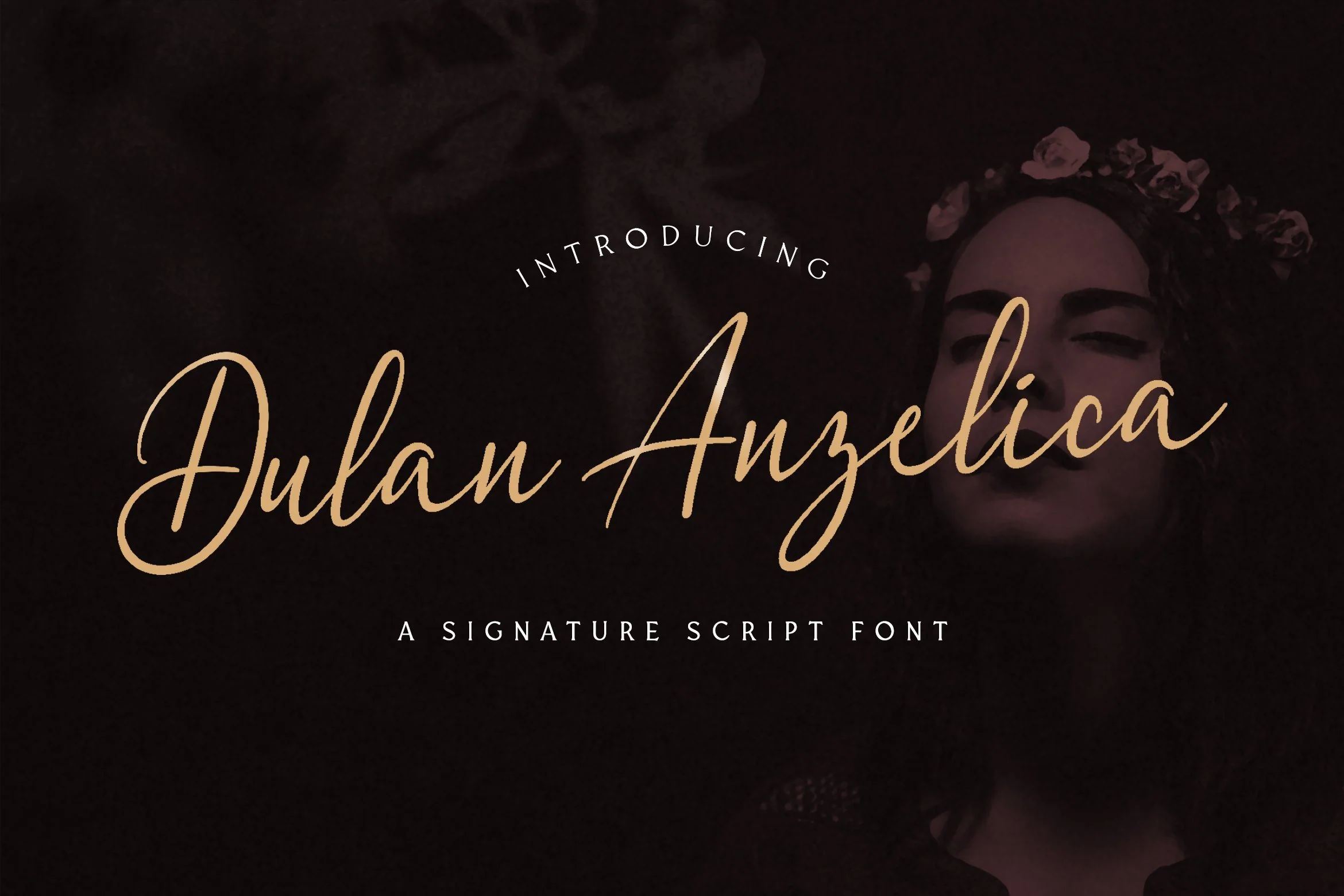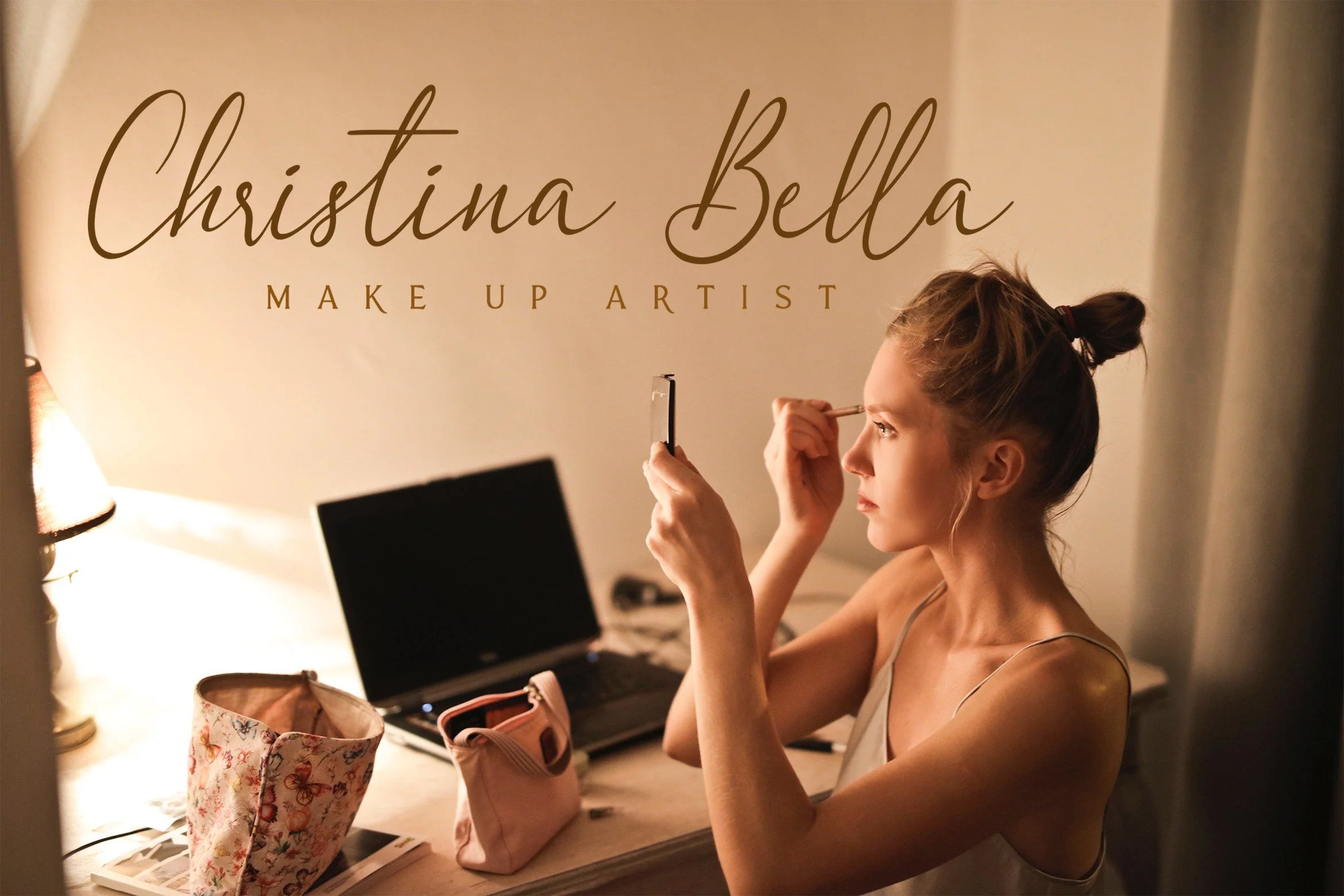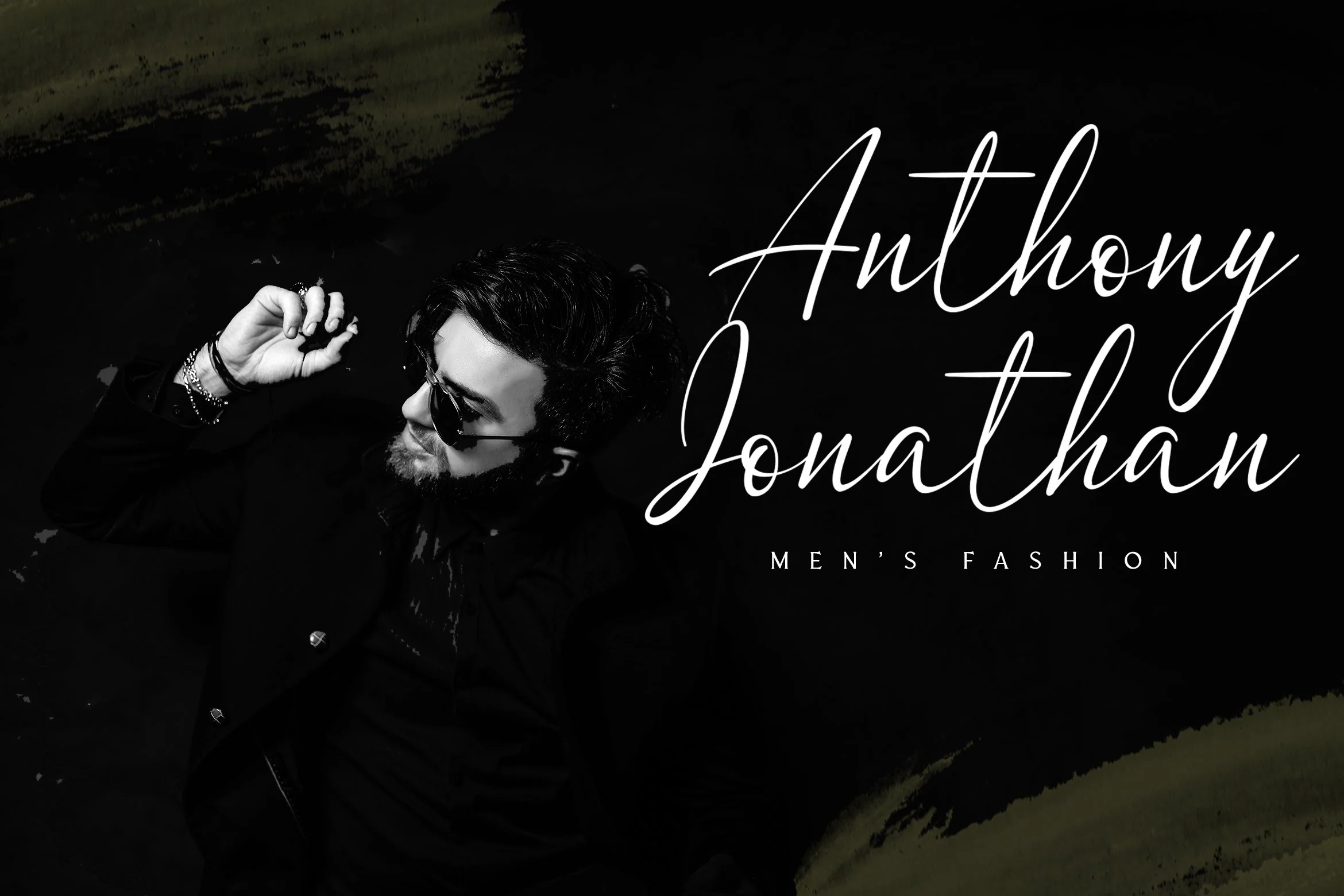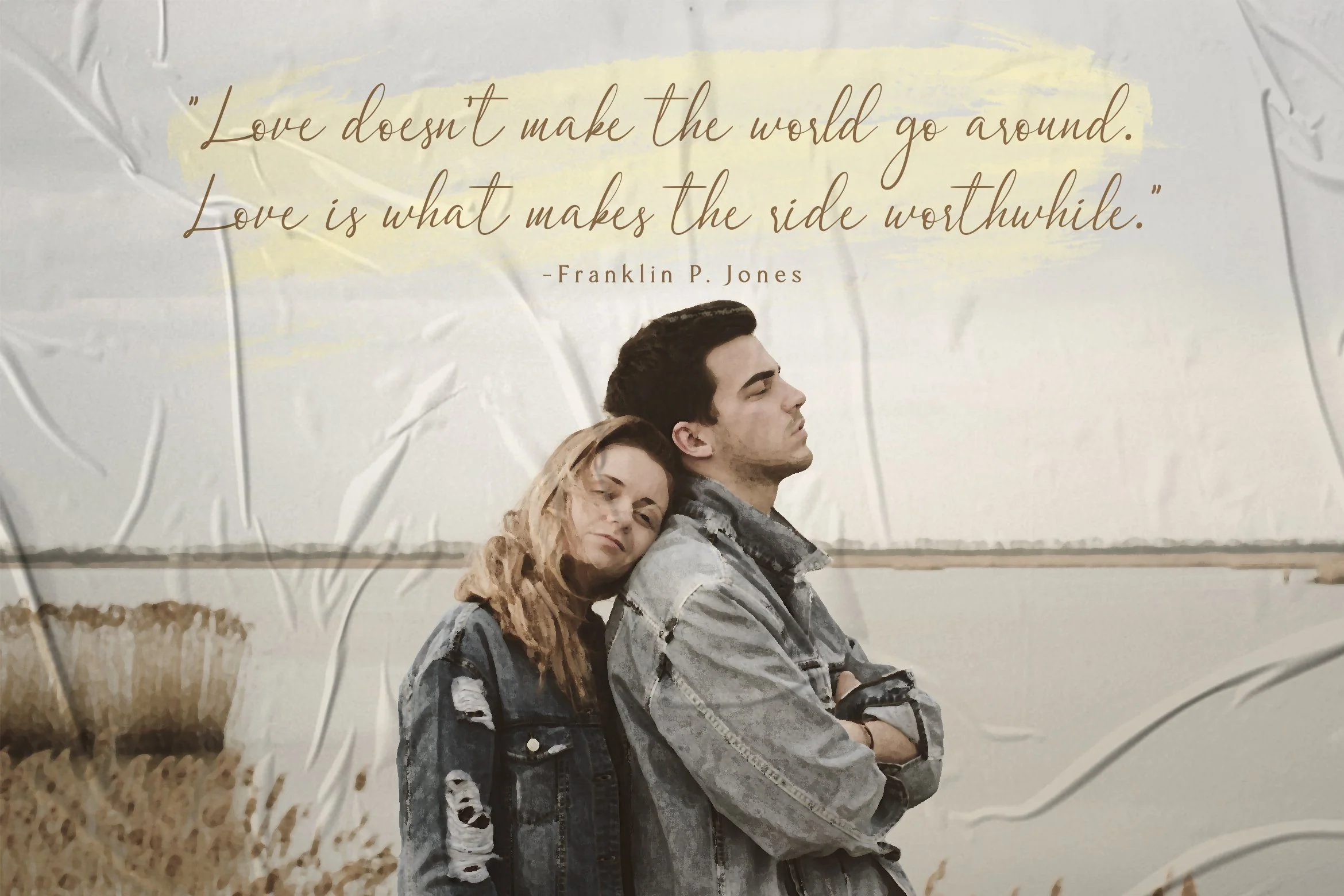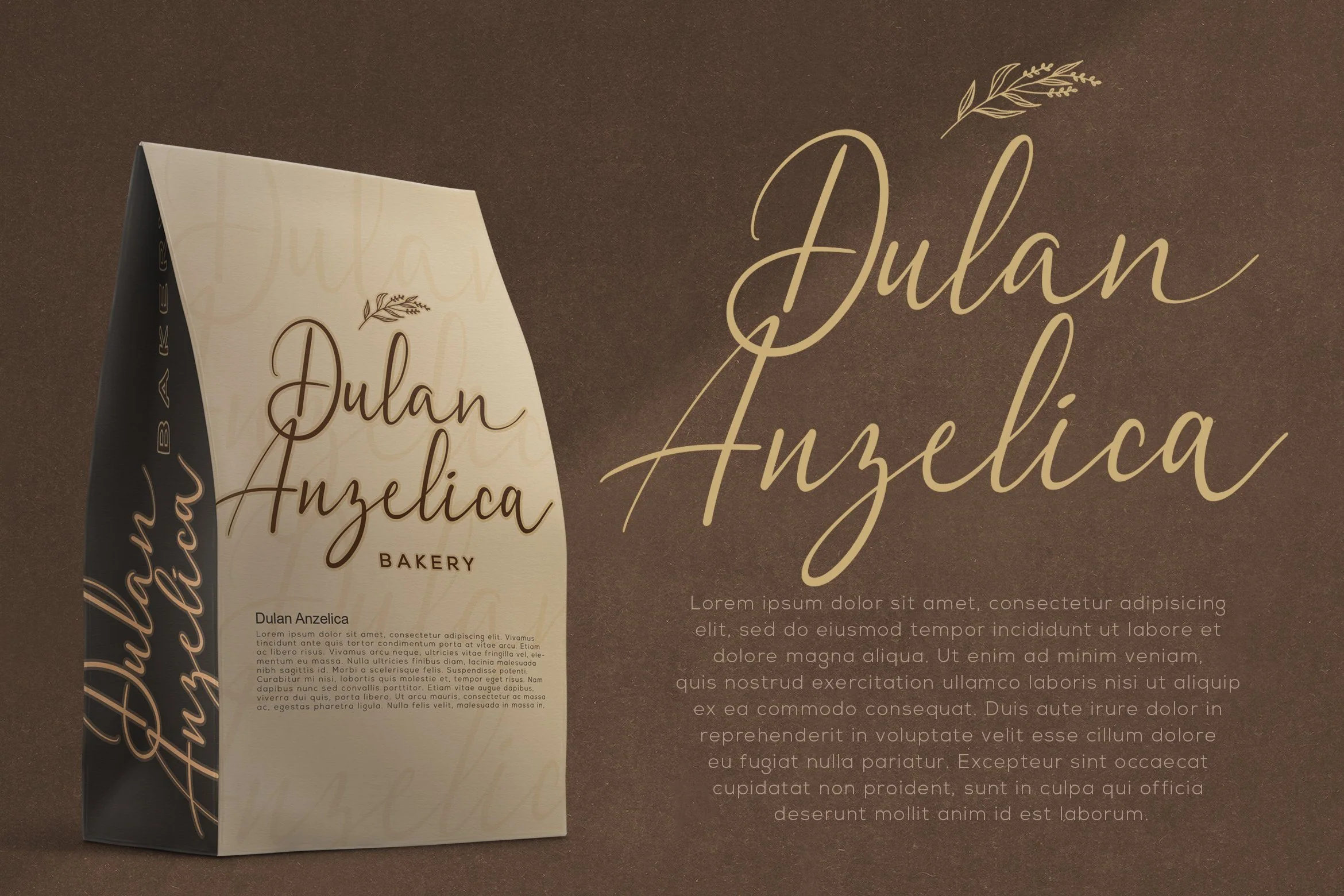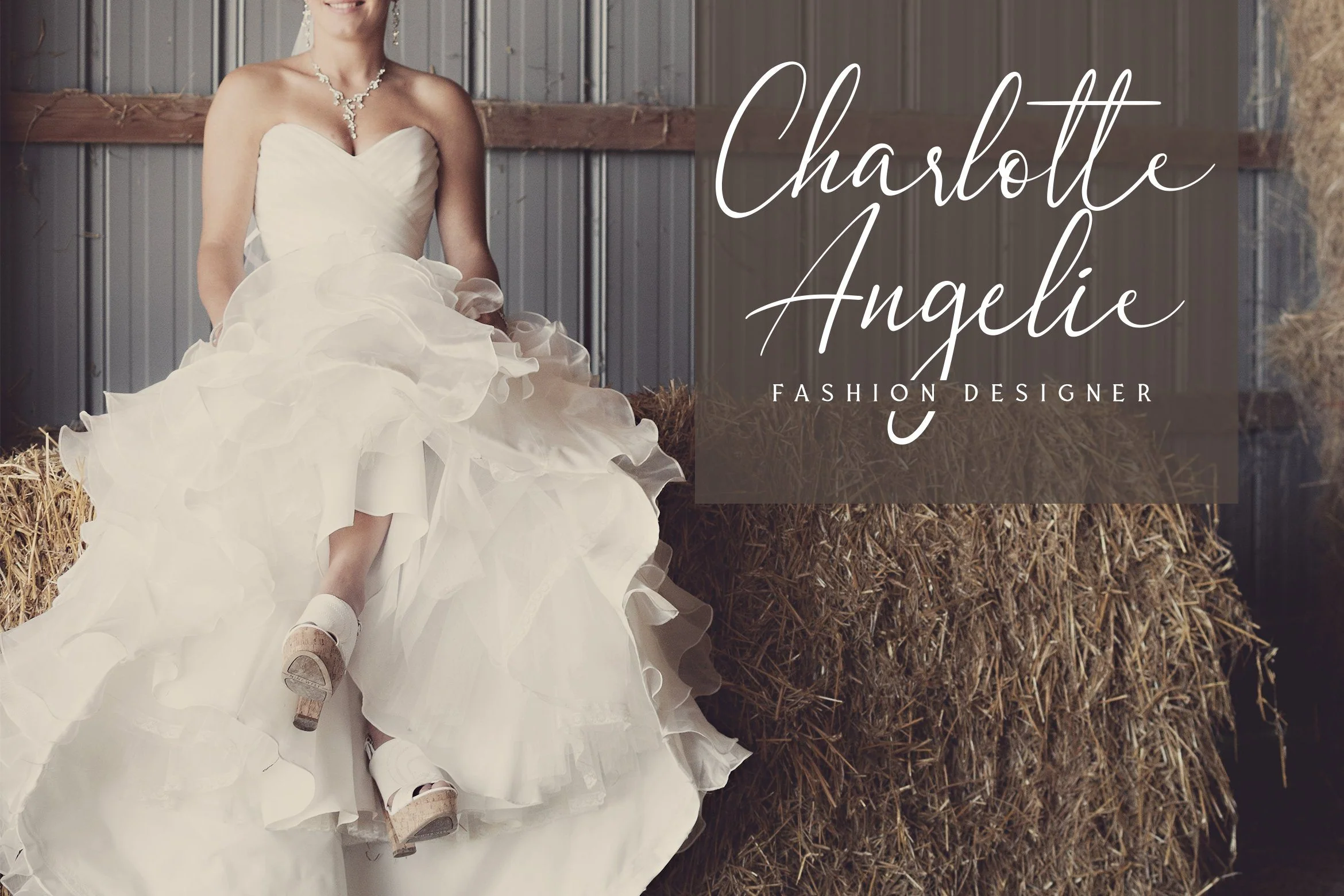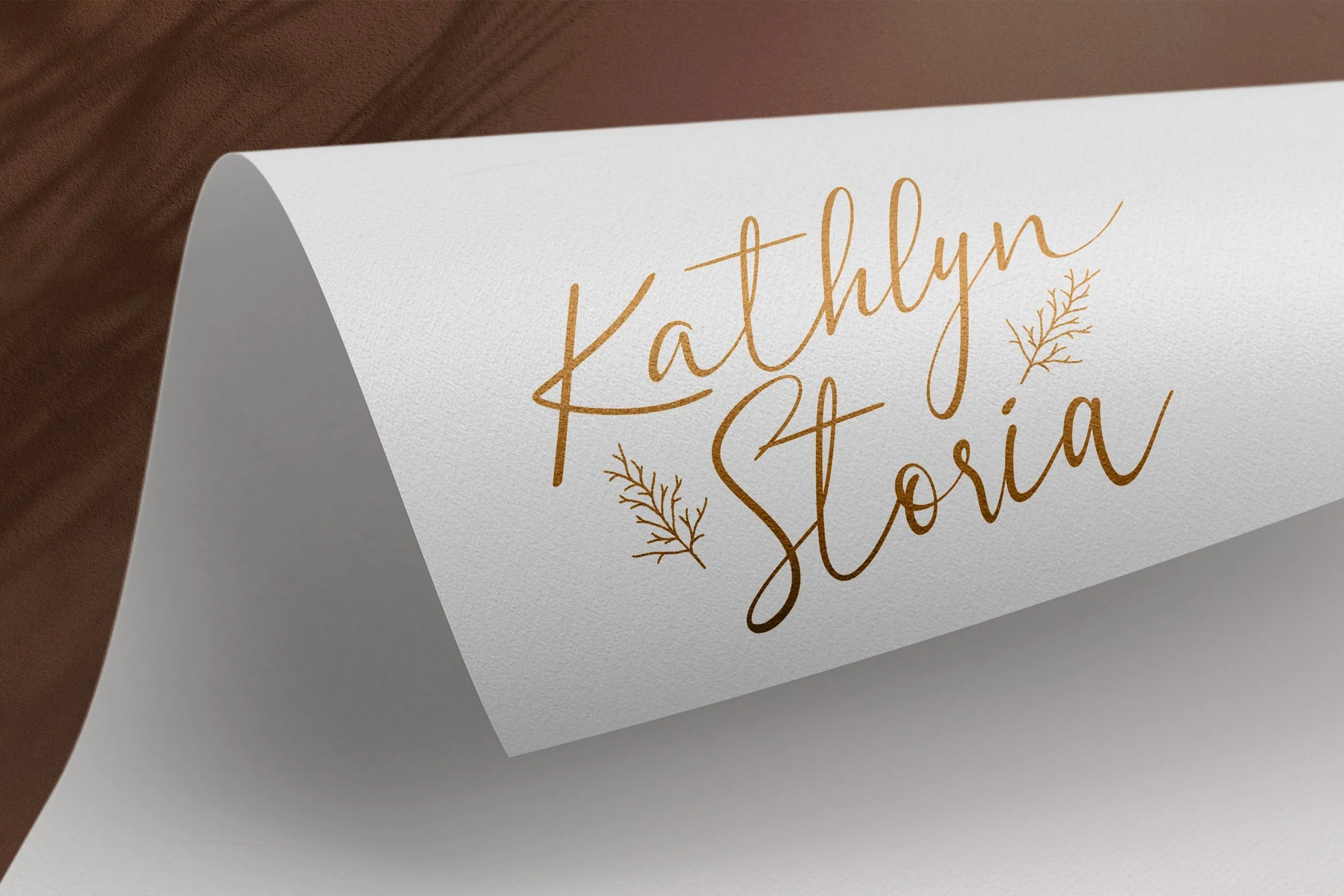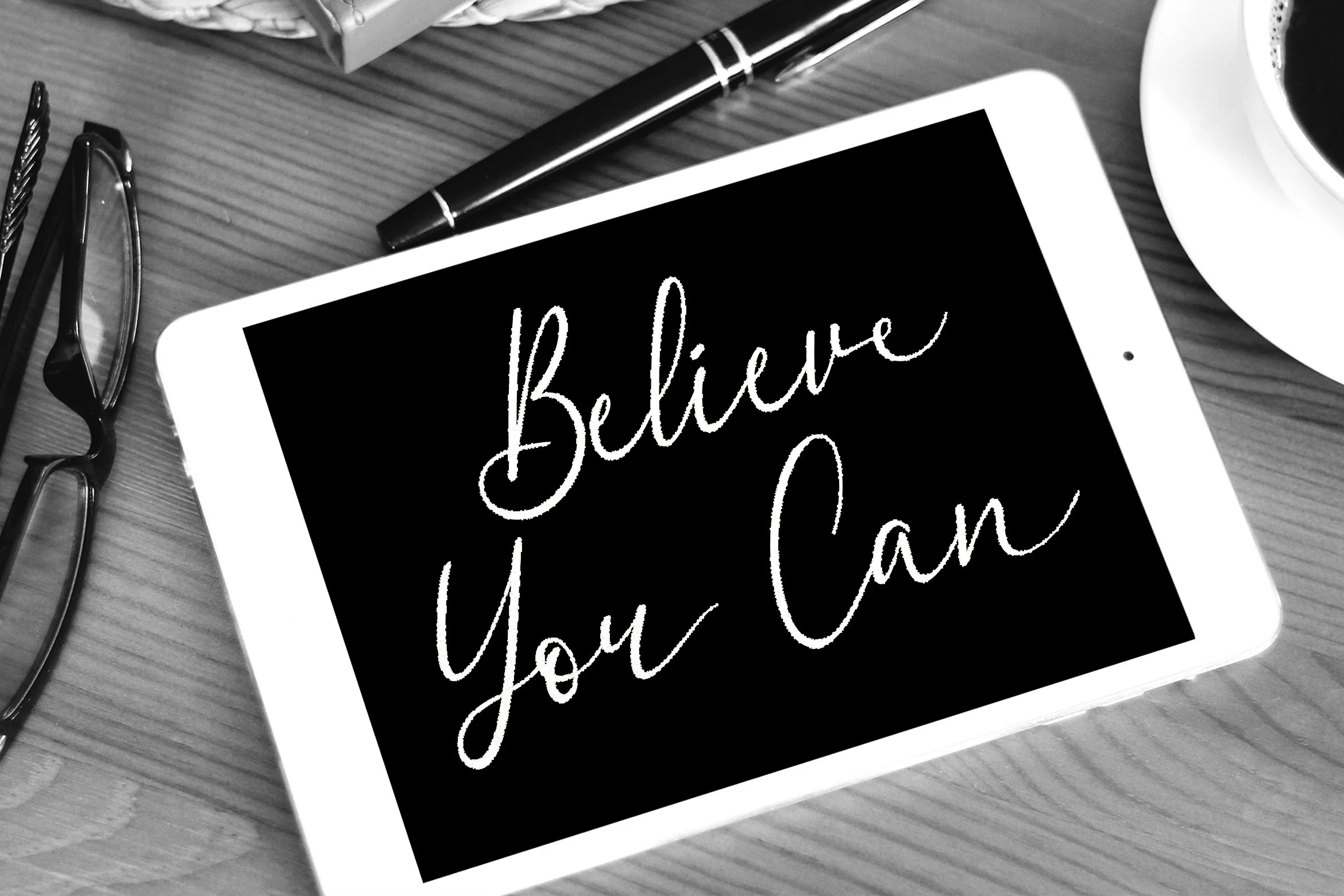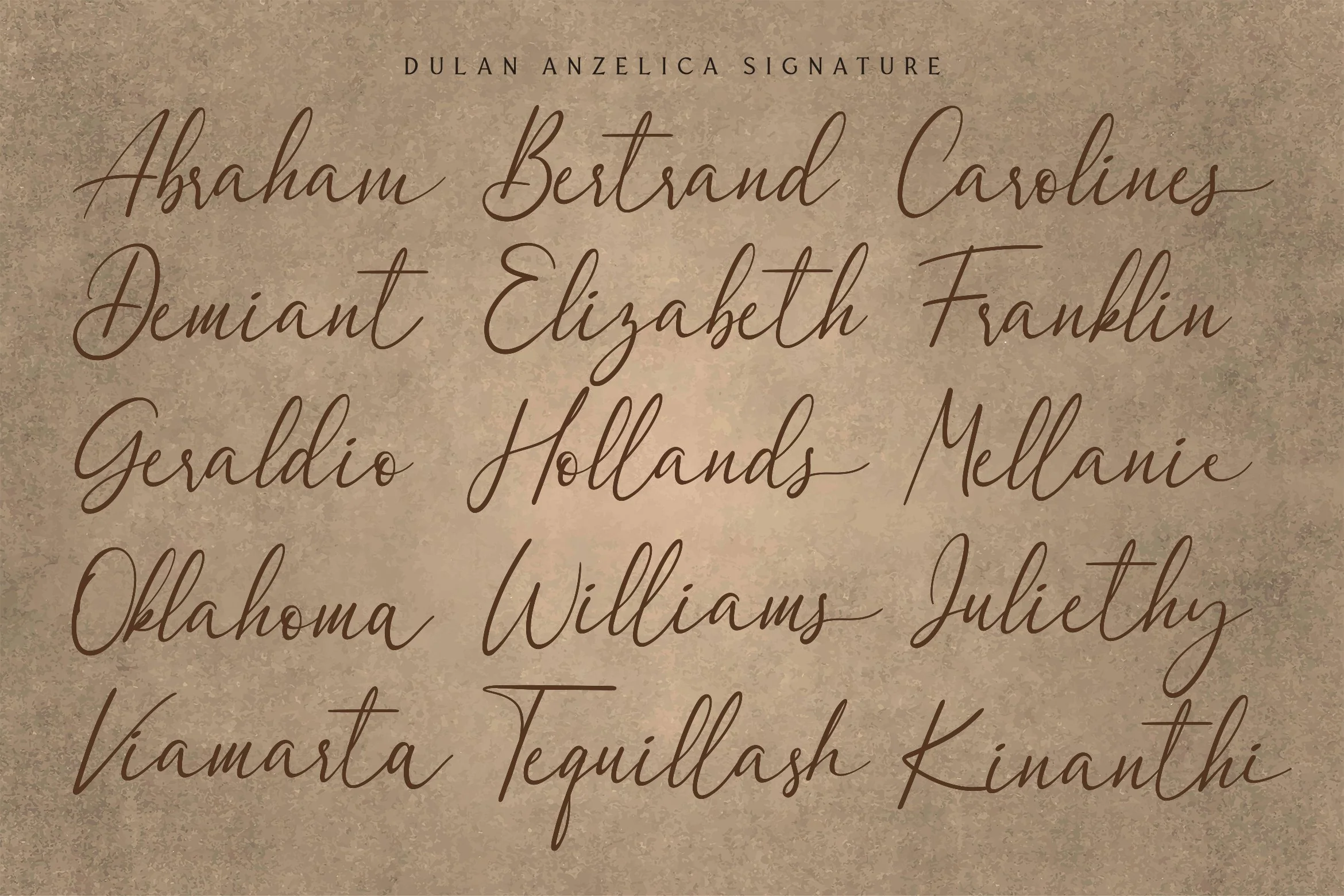
Dulan Anzelica - Signature Script Font
Introducing Dulan Anzelica - Signature Script Font
Dulan Anzelica is a Modern Signature Script Font with Handwritten Style. This font is perfect for fashion brand, wedding invitation, business card, logo brand, signature, and also for calligraphy purpose.
This Font Template contains Classy, Elegant, Creative, Cool and has a Unique Concept.